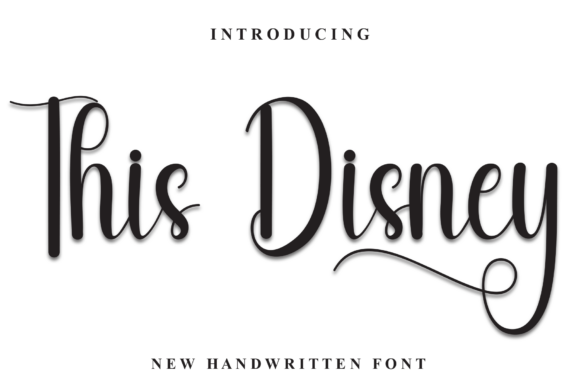
This Disney Font: A Stylish Handwritten Script Font
This Disney font is a stylish handwritten script font that captures elegance and playfulness in every stroke. With flowing curves and a natural rhythm, it adds a personal, charming touch to invitations, branding, and social media. Its graceful design brings warmth, sophistication, and creativity to any project.
Key Features of This Disney Font
- Elegant and Playful Design: This Disney font combines elegance and playfulness, making it perfect for a wide range of projects.
- Flowing Curves and Natural Rhythm: The font’s flowing curves and natural rhythm give it a personal and charming touch.
- Versatile and Adaptable: This Disney font is suitable for various applications, from formal invitations to social media posts.
- High-Quality and Unique Design: The font’s unique design and high-quality craftsmanship make it stand out from other fonts.
Uses of This Disney Font
This Disney font is a versatile font that can be used in various contexts. Here are some of the most popular uses:
- Invitations and Event Planning: The font’s elegant and playful design makes it perfect for invitations, wedding cards, and event planning.
- Branding and Marketing: This Disney font can be used to create unique and memorable brand identities, logos, and marketing materials.
- Social Media and Blogging: The font’s friendly and approachable design makes it suitable for social media posts, blog headers, and other online content.
- Packaging and Product Design: This Disney font can add a touch of elegance and sophistication to product packaging and design.
Benefits of Using This Disney Font
Using This Disney font offers several benefits, including:
- Unique and Memorable Design: The font’s unique design makes it stand out from other fonts and helps create a lasting impression.
- Elegant and Playful Aesthetic: This Disney font’s elegant and playful aesthetic adds a touch of sophistication and whimsy to any project.
- High-Quality Craftsmanship: The font’s high-quality craftsmanship ensures that it is clear and legible, even at small sizes.
- Versatility and Adaptability: This Disney font is versatile and adaptable, making it suitable for a wide range of projects and applications.
Tips for Using This Disney Font
Here are some tips for using This Disney font effectively:
- Pair with Complementary Fonts: Pair This Disney font with complementary fonts to create a harmonious and visually appealing design.
- Use for Headings and Titles: Use This Disney font for headings and titles to add a touch of elegance and sophistication.
- Experiment with Colors and Textures: Experiment with different colors and textures to add depth and interest to your design.
- Keep it Simple and Legible: Keep your design simple and legible by using clear and concise language.
Inspiration for This Disney Font
This Disney font was inspired by the classic Disney scripts and handwriting. The font’s designers aimed to capture the elegance and playfulness of these scripts, while also making it versatile and adaptable for modern use.
The font’s flowing curves and natural rhythm are reminiscent of handwritten scripts, while its elegant and sophisticated design makes it perfect for formal and informal applications.
- Characters and Glyphs: The font includes a wide range of characters and glyphs, including uppercase and lowercase letters, numbers, and punctuation marks.
- Language Support: This Disney font supports multiple languages, including English, Spanish, French, and more.
| Font Name | This Disney Font |
This Disney font is a stylish handwritten script font that captures elegance and playfulness in every stroke. With its flowing curves and natural rhythm, it adds a personal, charming touch to invitations, branding, and social media. Its versatile and adaptable design makes it perfect for a wide range of projects and applications.
Whether you’re looking to create a unique brand identity, design a memorable invitation, or add a touch of elegance to your social media posts, This Disney font is an excellent choice.